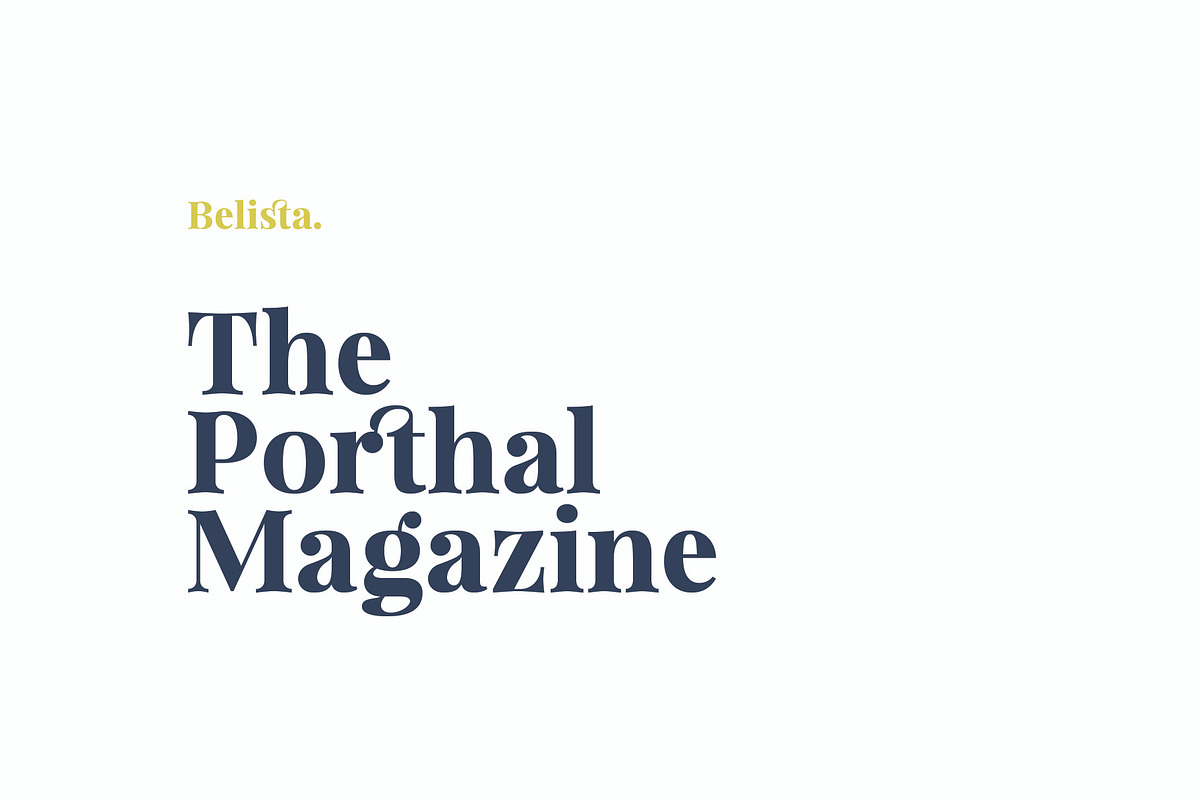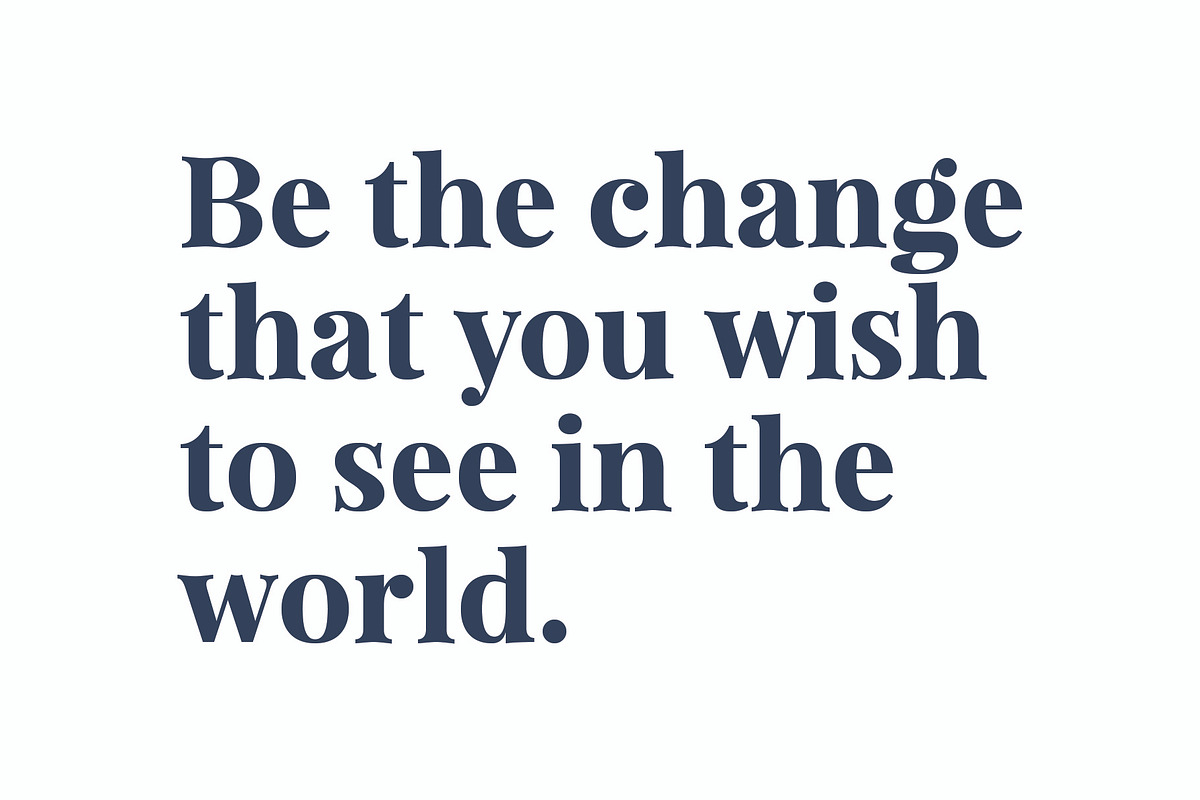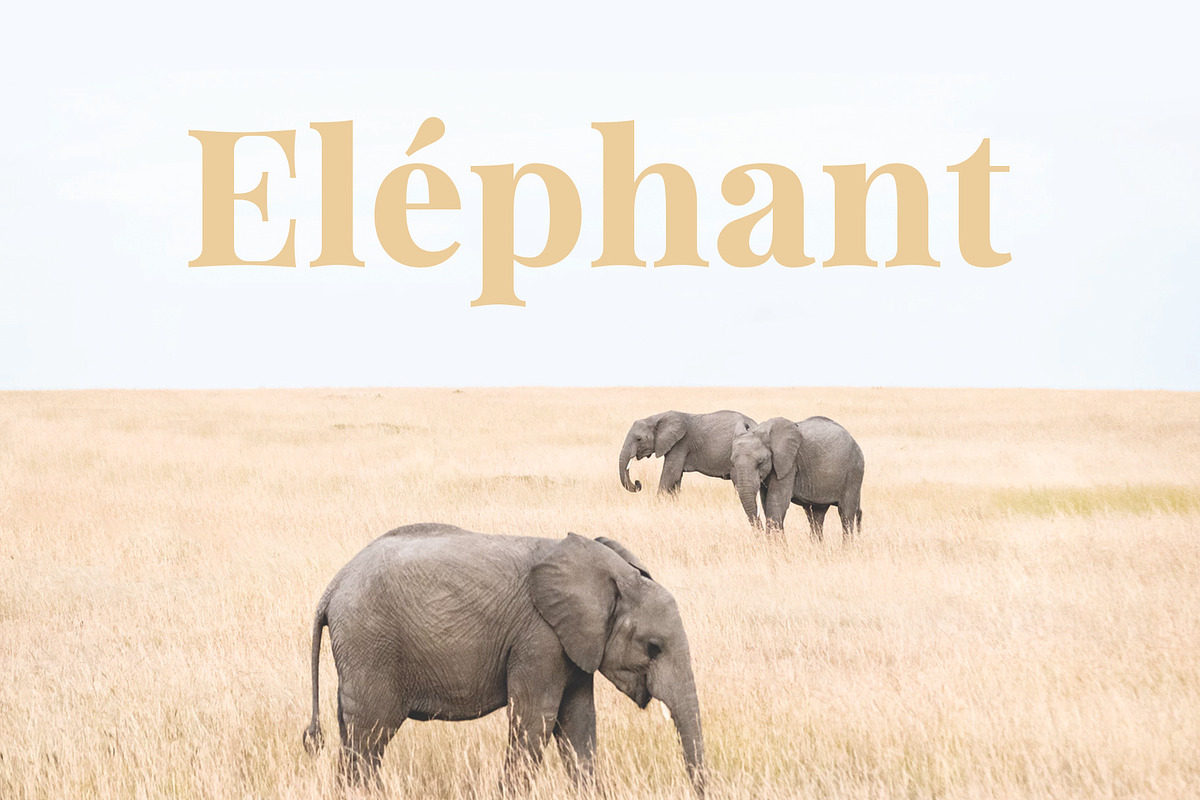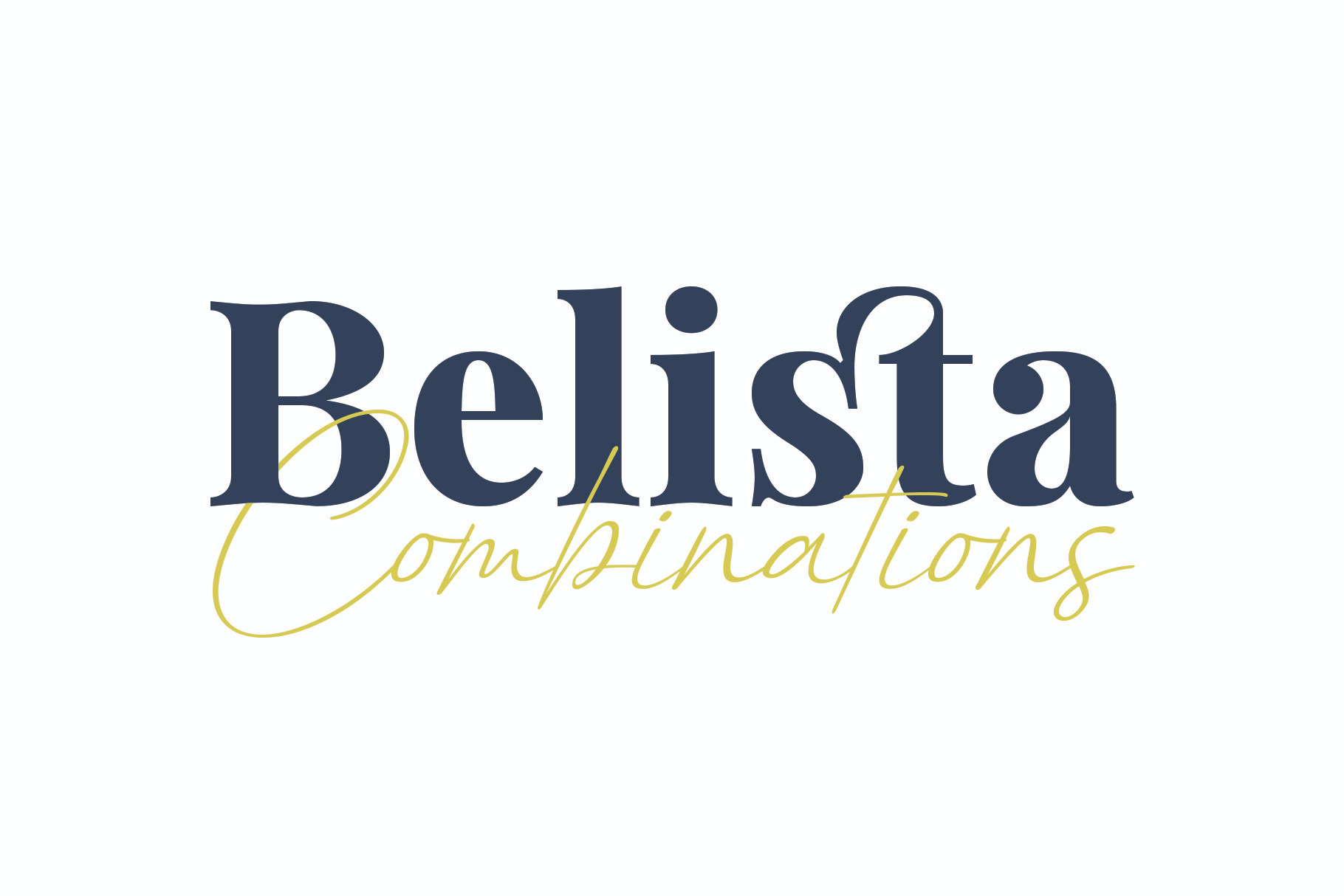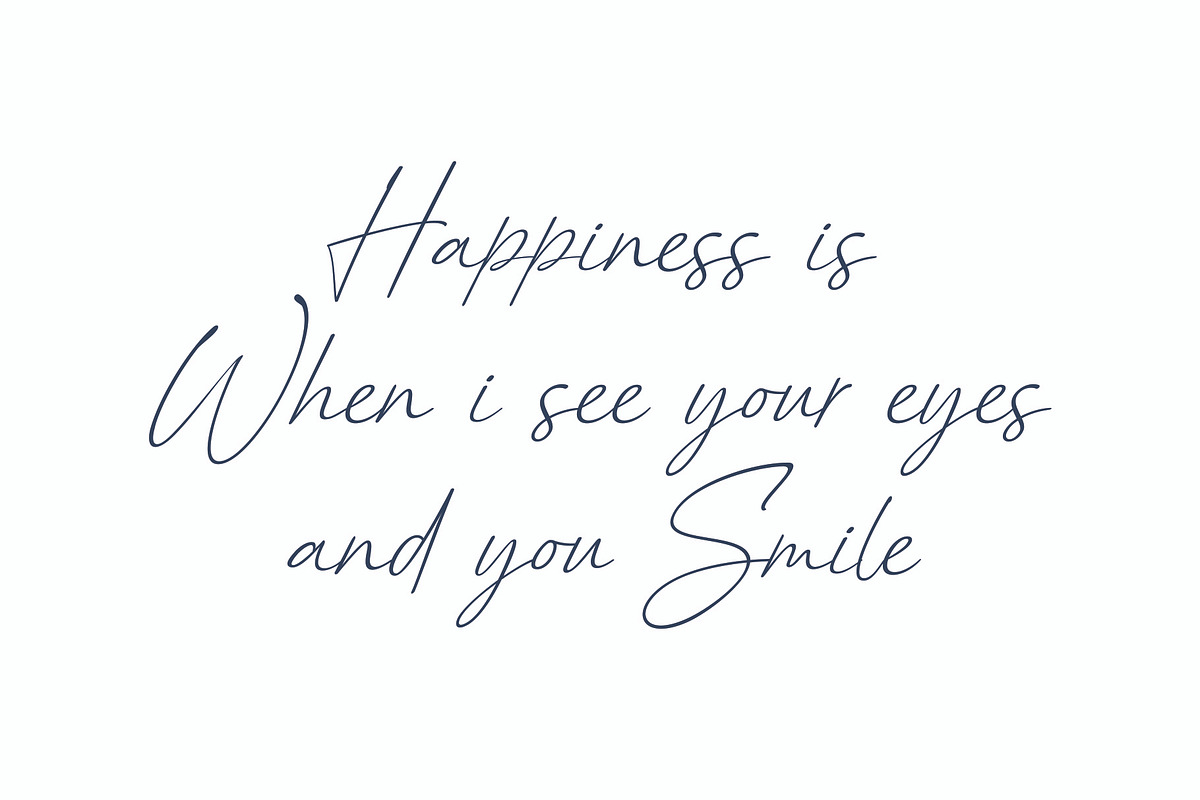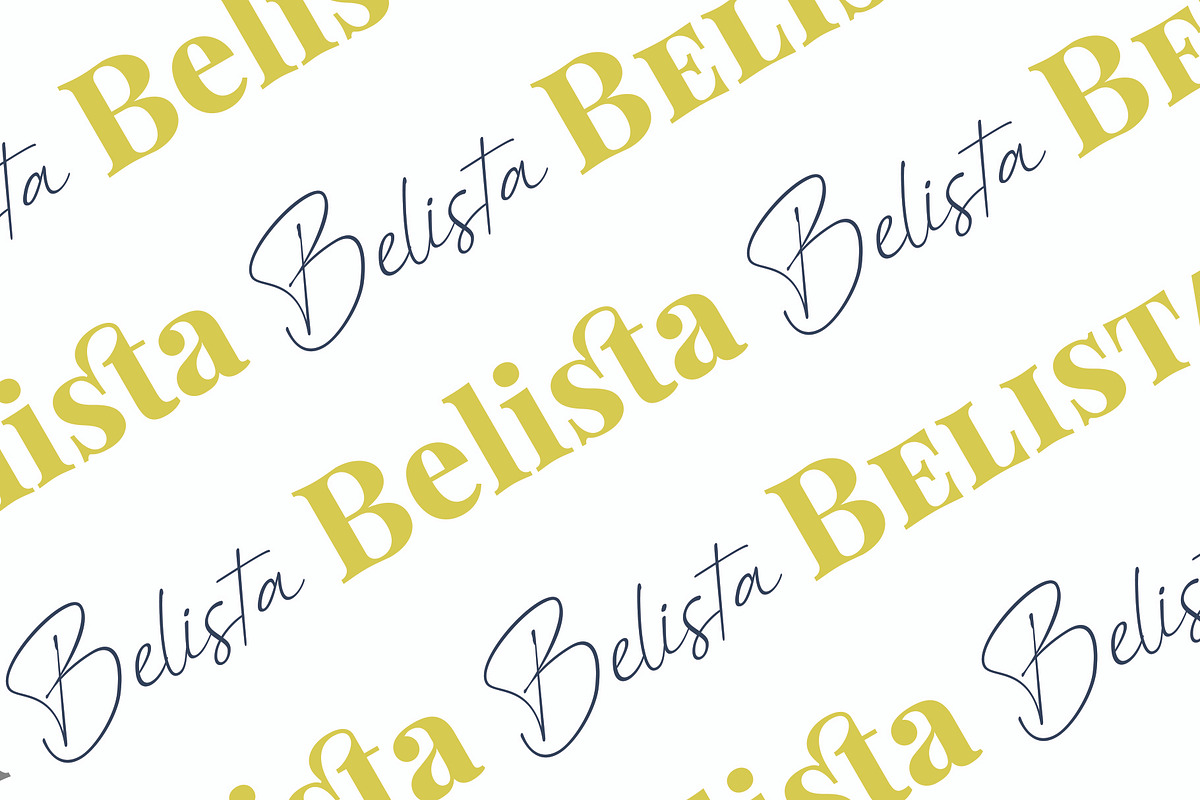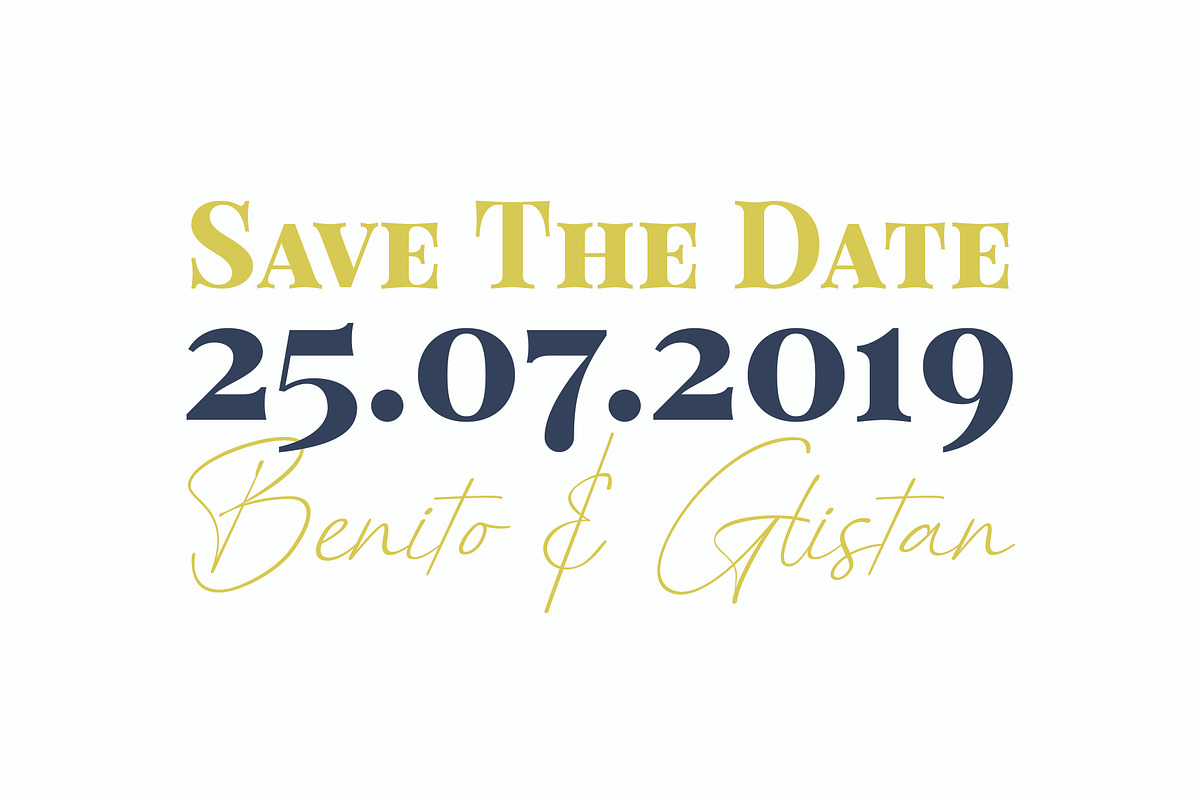
Belista - Font Combination
Belista is a serif-style display font that is combined with handwritten style letters. Belista is divided into three styles:
- Belista is a regular version. consists of upper and lower case letters, plus ligature and discretionary ligature.
- Belista Caps are derivatives of Belista Regular in the form of uppercase letters to lowercase letters (Capital to Small Caps).
- Belista Script is a handwritten style of letters created to be combined with Belista Regular and Belista Caps.
Belista supports multi languages and is ideal for branding, logos, advertising and packaging needs, editorials and much more.